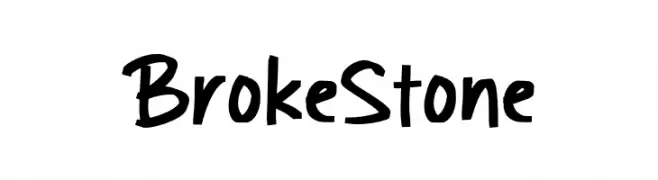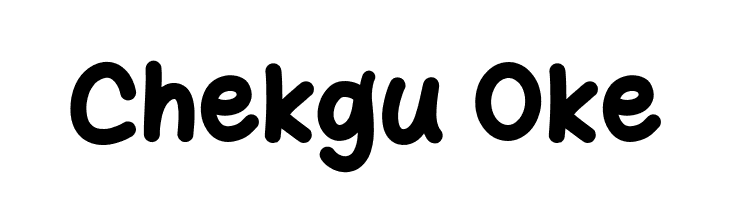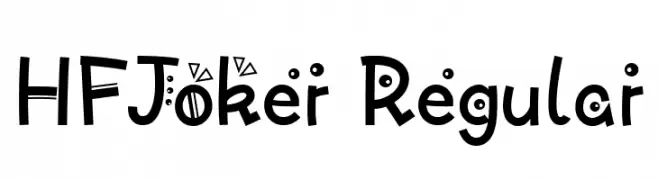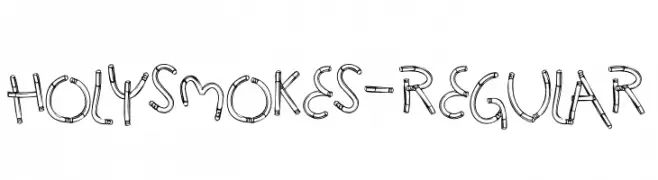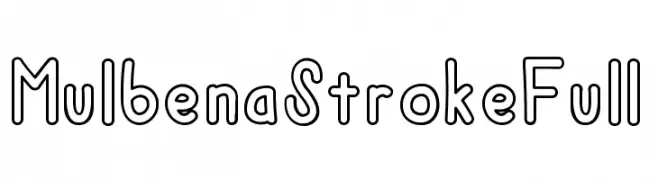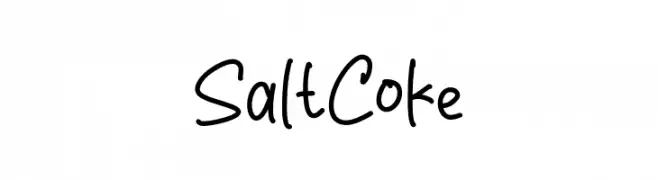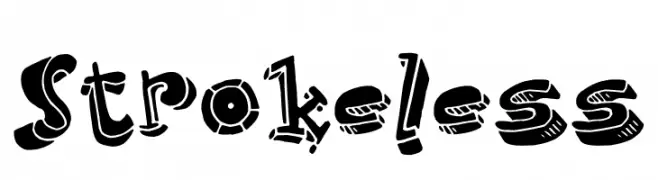
A playful, bold outline font with rounded edges and consistent width.
A whimsical, pipe-themed decorative font with playful character designs.
A modern, angular font with sharp geometric lines and a dynamic slant.
A playful, rounded font with bold, smooth curves and a friendly vibe.
A playful, rounded font with a bold and friendly appearance.
A playful and whimsical font with quirky embellishments and dynamic letterforms.
A bold, fiery font with a distressed, energetic style.
A bold, hand-drawn font with a playful and informal style.
A playful, casual handwritten font with smooth, flowing lines and a friendly appearance.